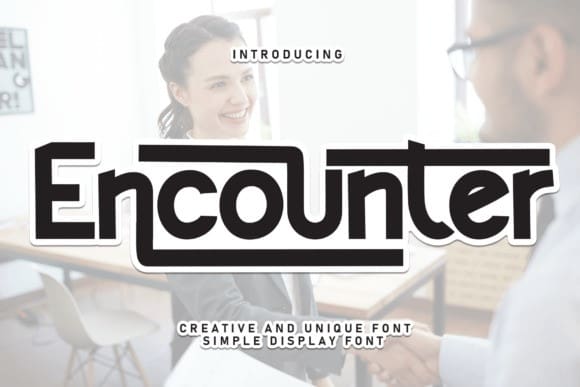
Encounter Font
Encounter Font, its latest style letters are perfect for wall displays, wedding invitations, social media posts, logos, advertisements, product packaging, product designs, labels, photography, watermarks, invitations, stationery, and any project that requires a handwritten taste.